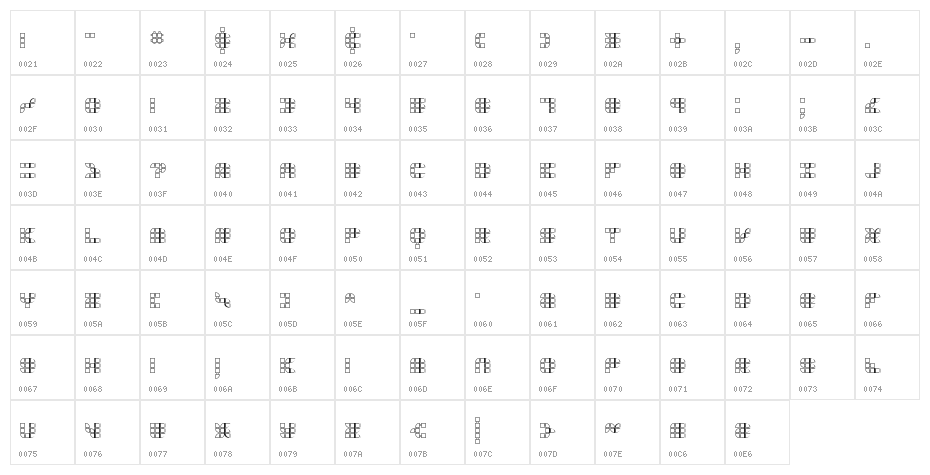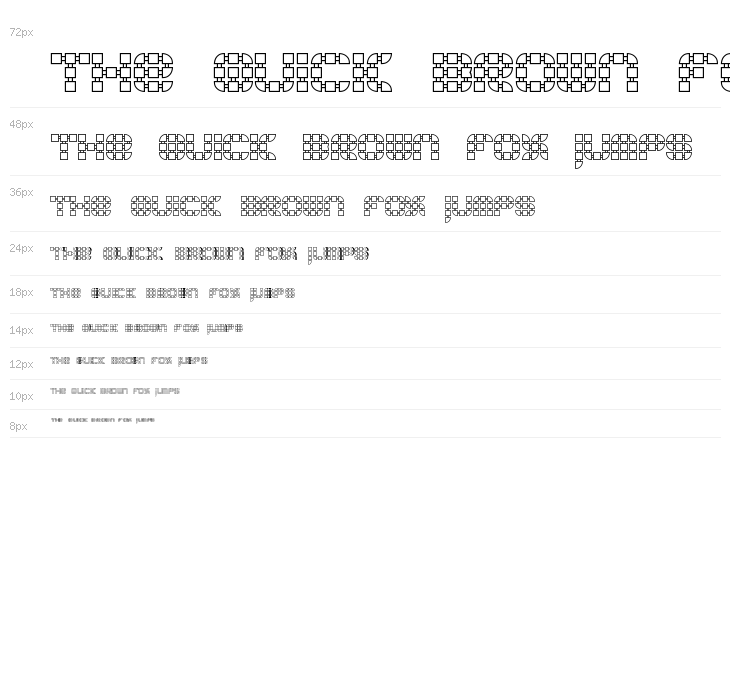
Konector O1 -BRK- Font
Konector O1 -BRK- Description
This font features a unique, geometric design with each character composed of interconnected squares and circles. The intricate pattern gives it a digital, almost circuit-like appearance, making it stand out as a decorative typeface. The uppercase and lowercase letters maintain a consistent style, with the same structural elements applied across the alphabet. Numbers and special characters are also designed with the same geometric complexity, ensuring uniformity throughout the character set. This font's distinct style makes it suitable for projects that require a modern and technological aesthetic.
| Proposed Projects | Ideal for tech-themed designs, digital art projects, futuristic branding, and creative posters. |